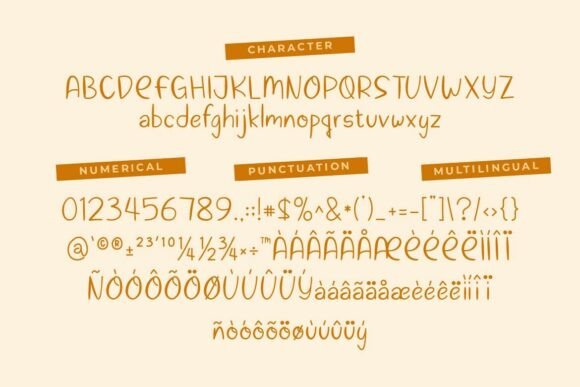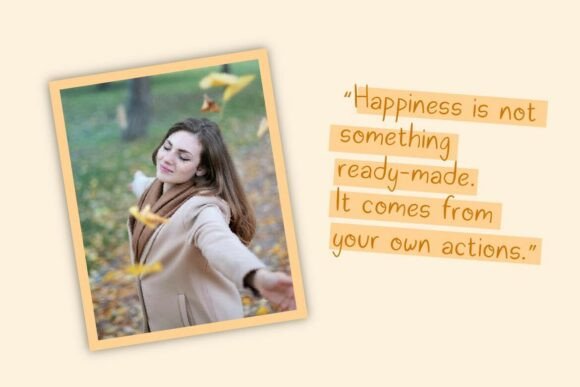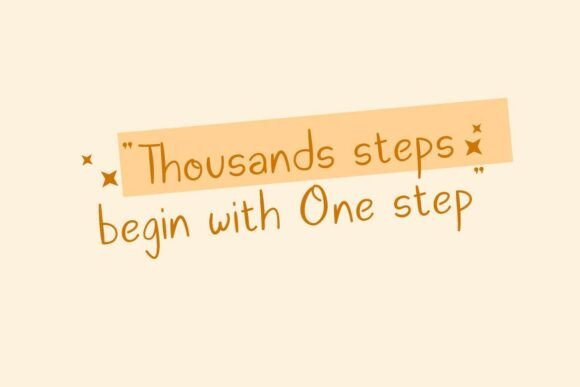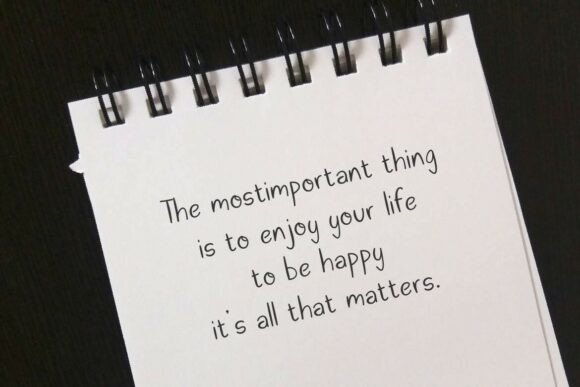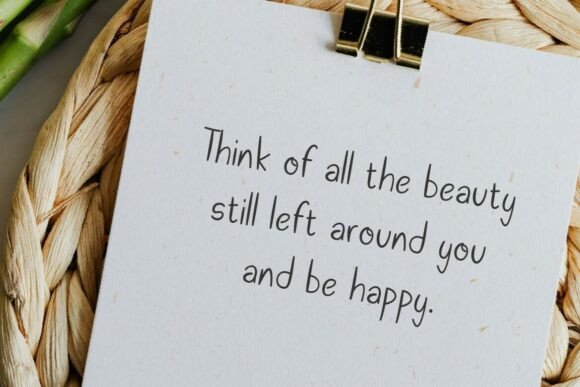
Introduction to Hello Merry Font
Hello Merry is a delightful handwritten font that brings joy, warmth, and personality to every design.
With bouncy curves, smooth strokes, and an organic flow, this font feels like a handwritten note from a dear friend — playful, friendly, and full of heart It’s perfect for greeting cards, quotes, invitations, social media content, kids branding, and cheerful packaging.